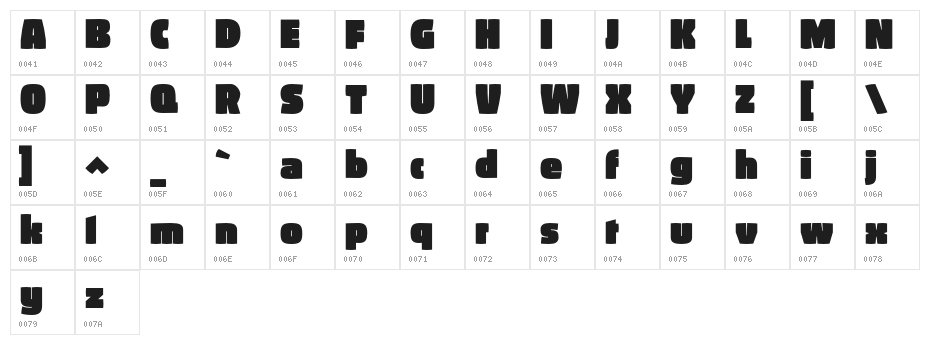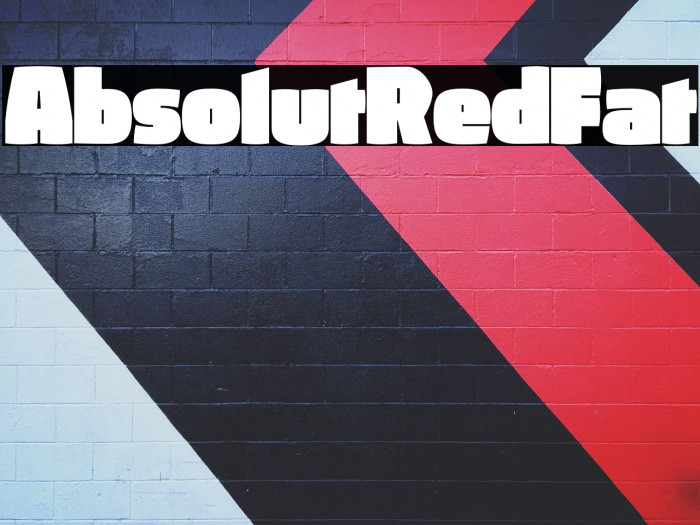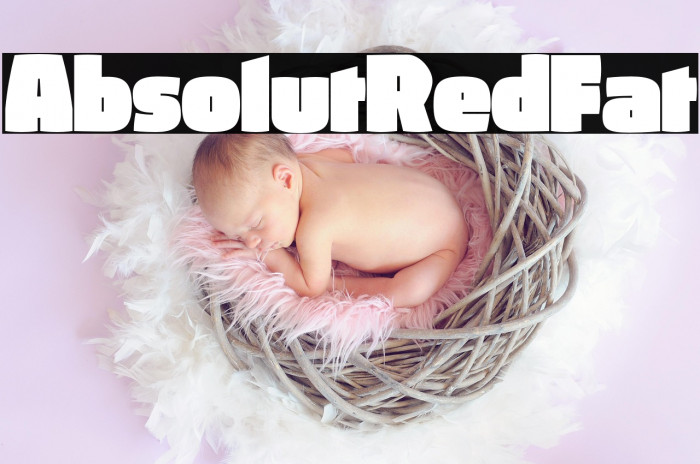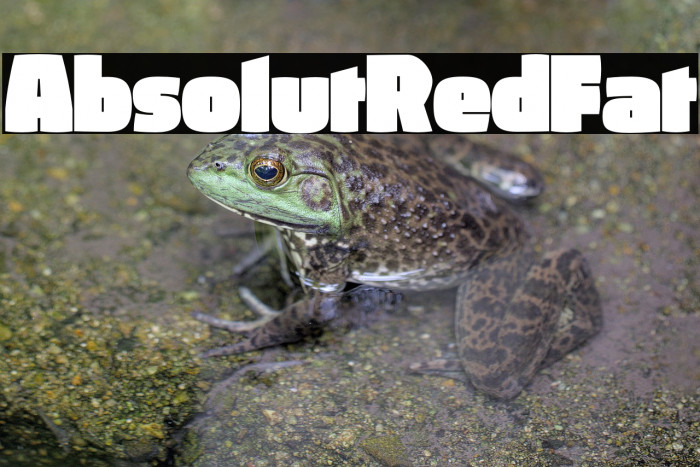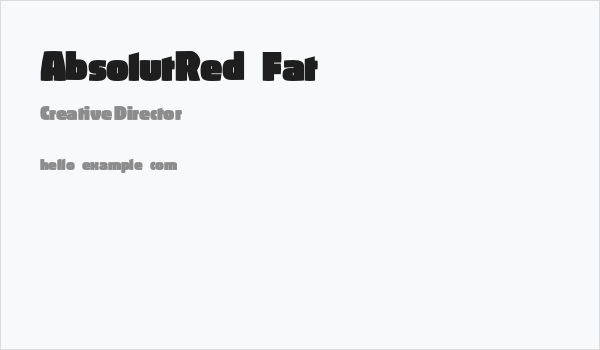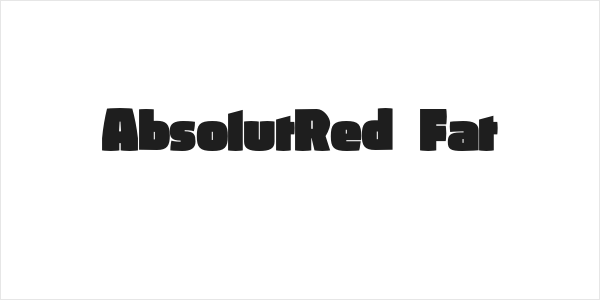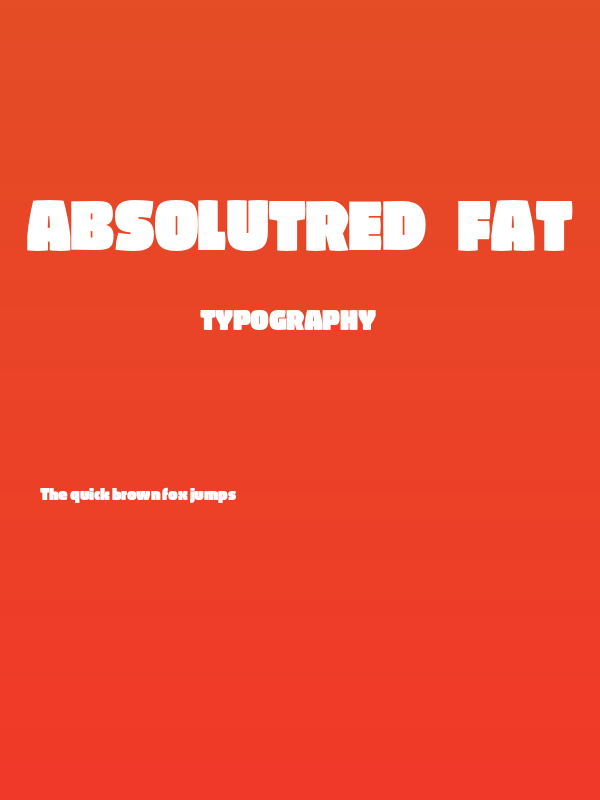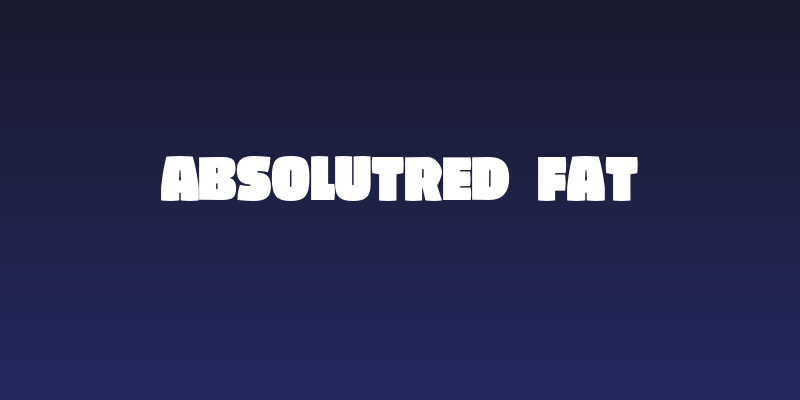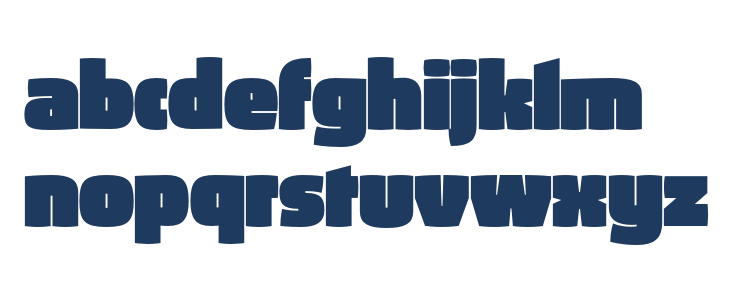
AbsolutRed-Fat Font
AbsolutRed-Fat Description
This font features a bold and impactful design with thick, blocky characters that convey a strong presence. The uppercase and lowercase letters maintain a consistent weight, creating a uniform appearance across all characters. The rounded edges soften the overall look, adding a touch of friendliness to the otherwise robust style. The numbers and special characters are designed to match the boldness of the alphabet, ensuring a cohesive look throughout. This font is ideal for making a statement and capturing attention with its heavy and substantial form.
| Proposed Projects | Ideal for headlines, posters, branding, and any project requiring a bold statement. |